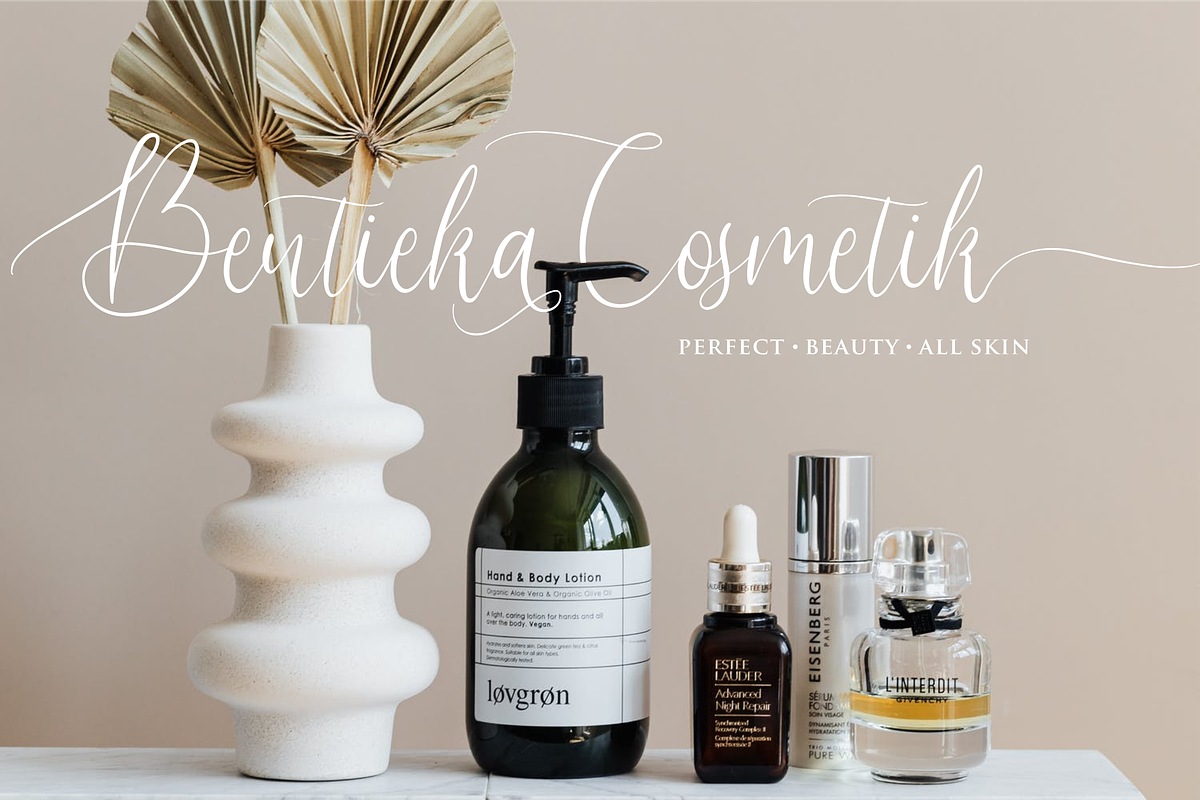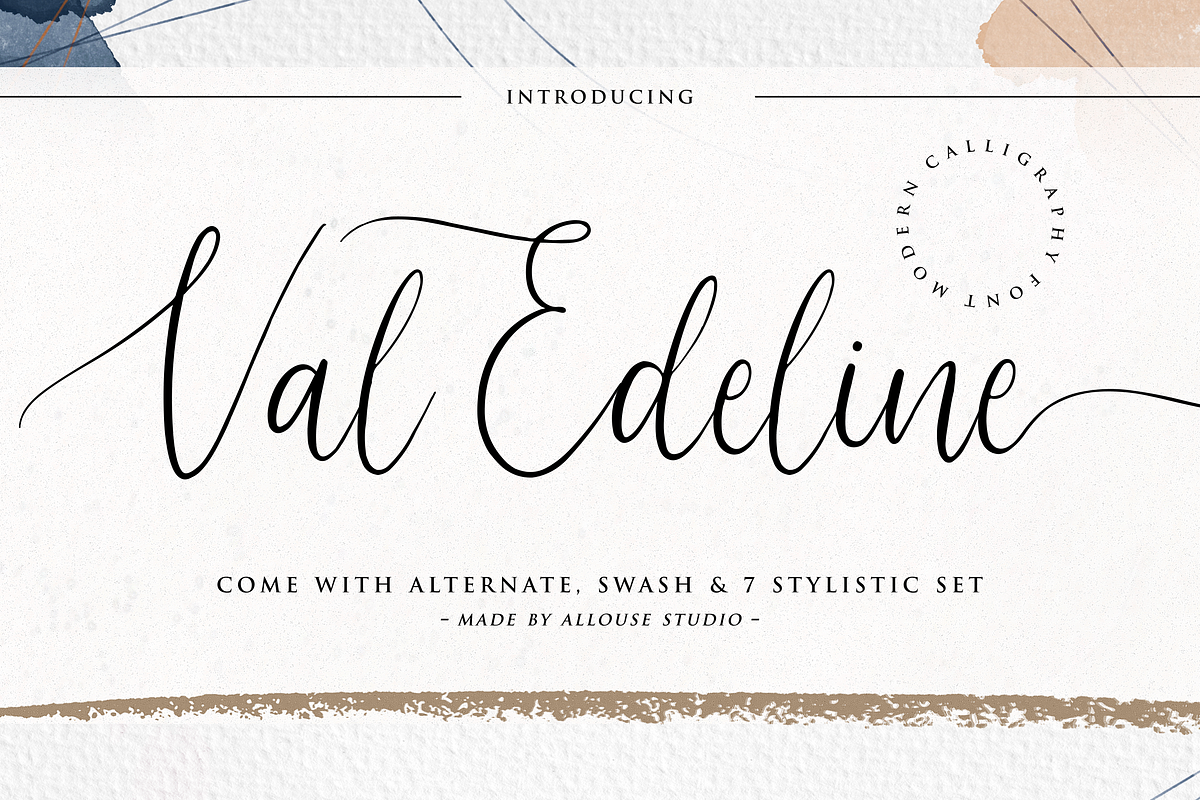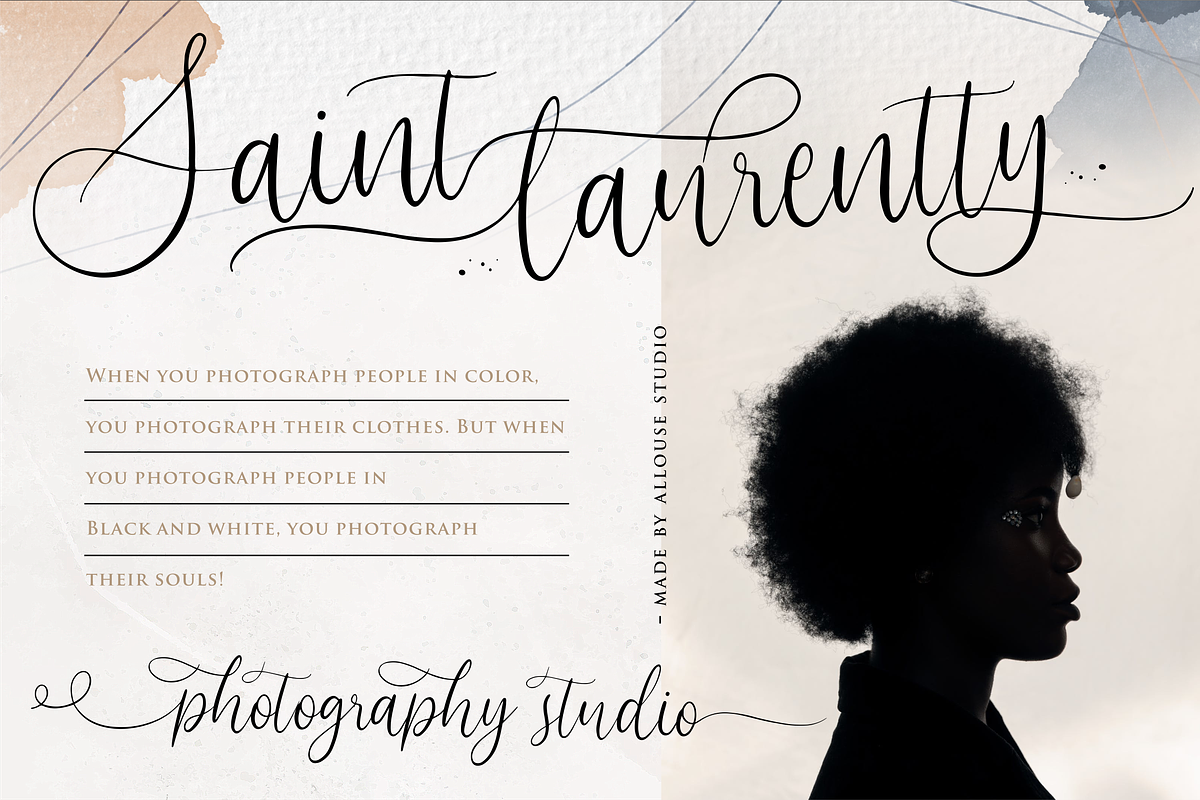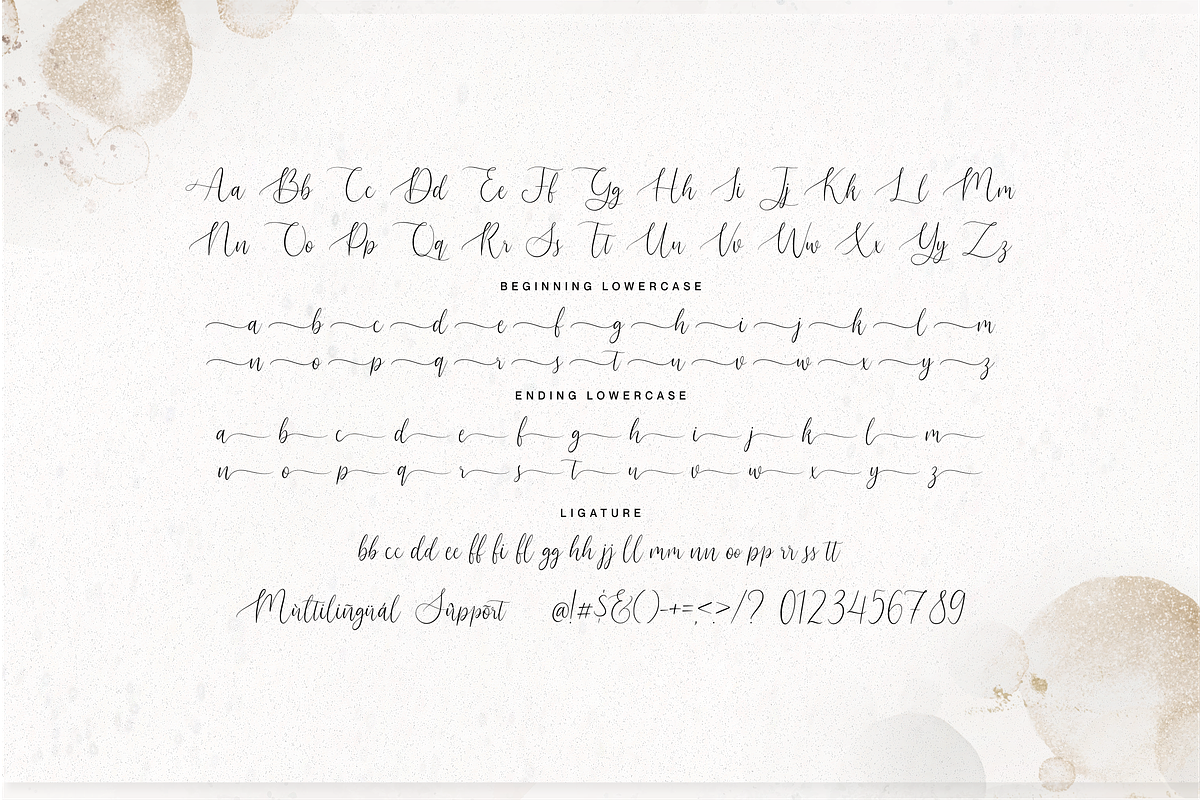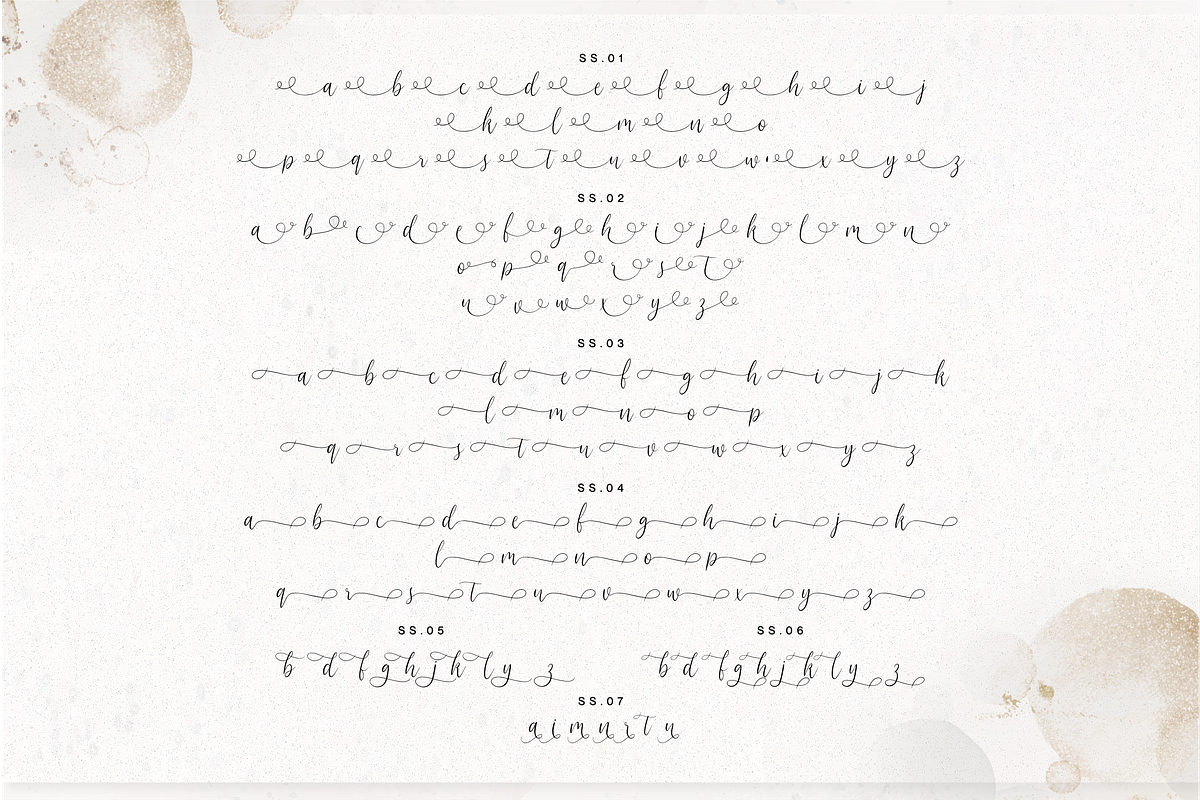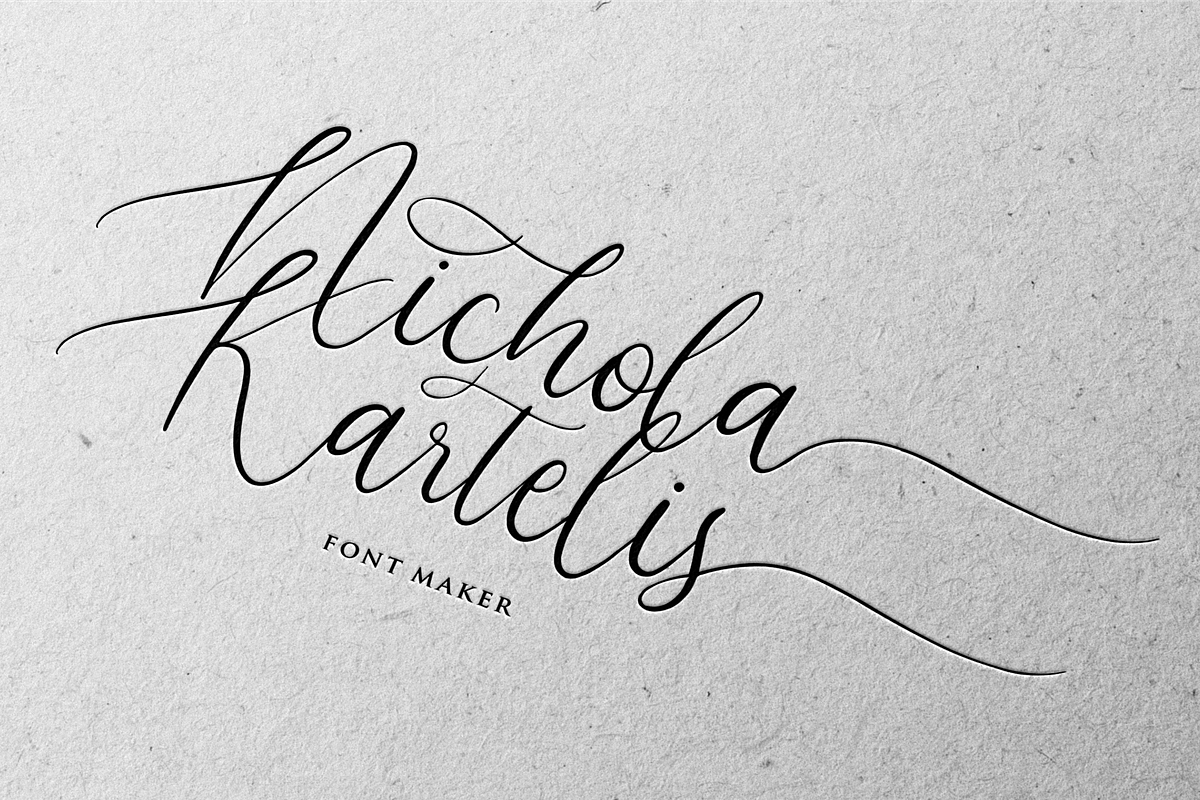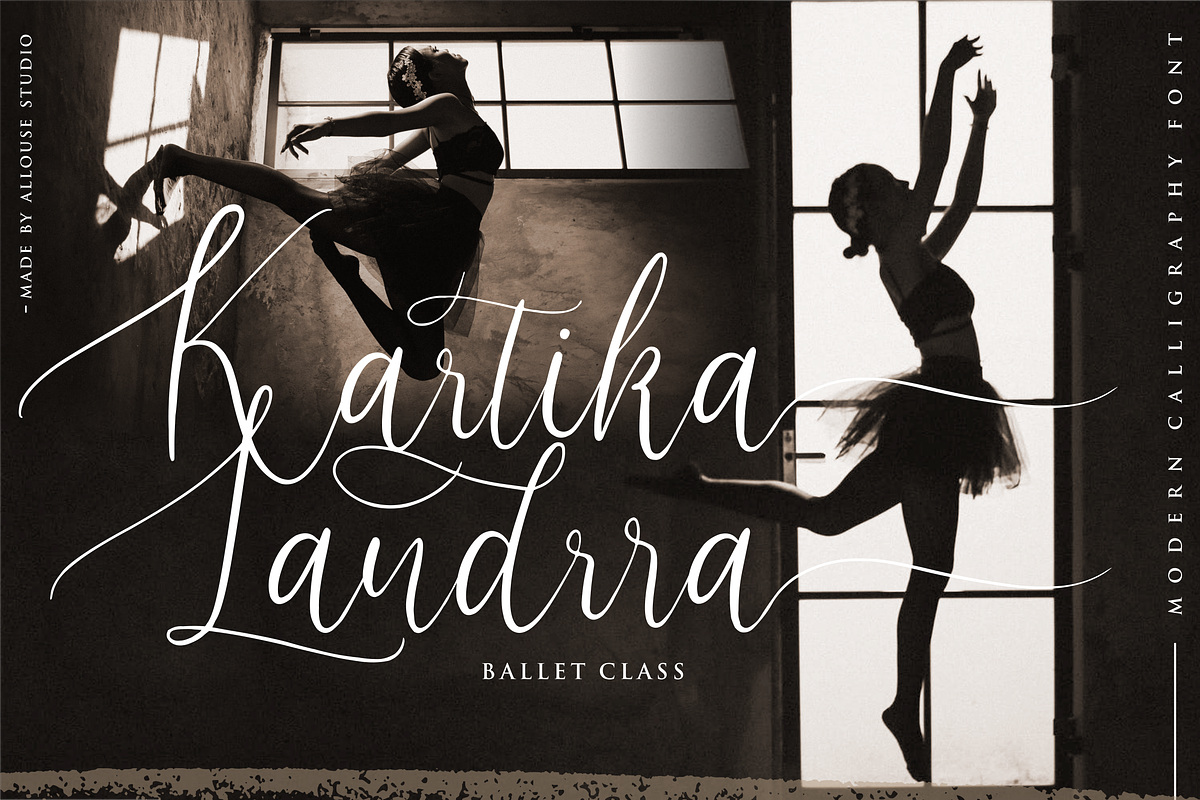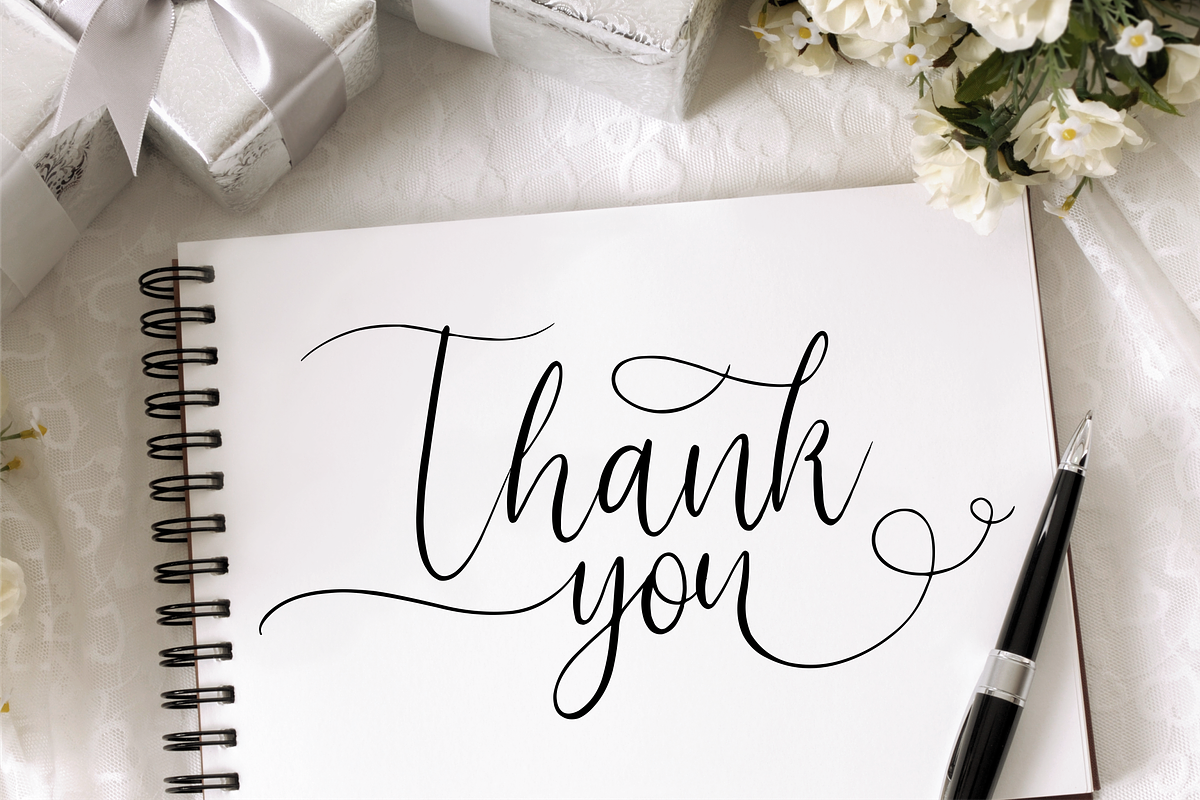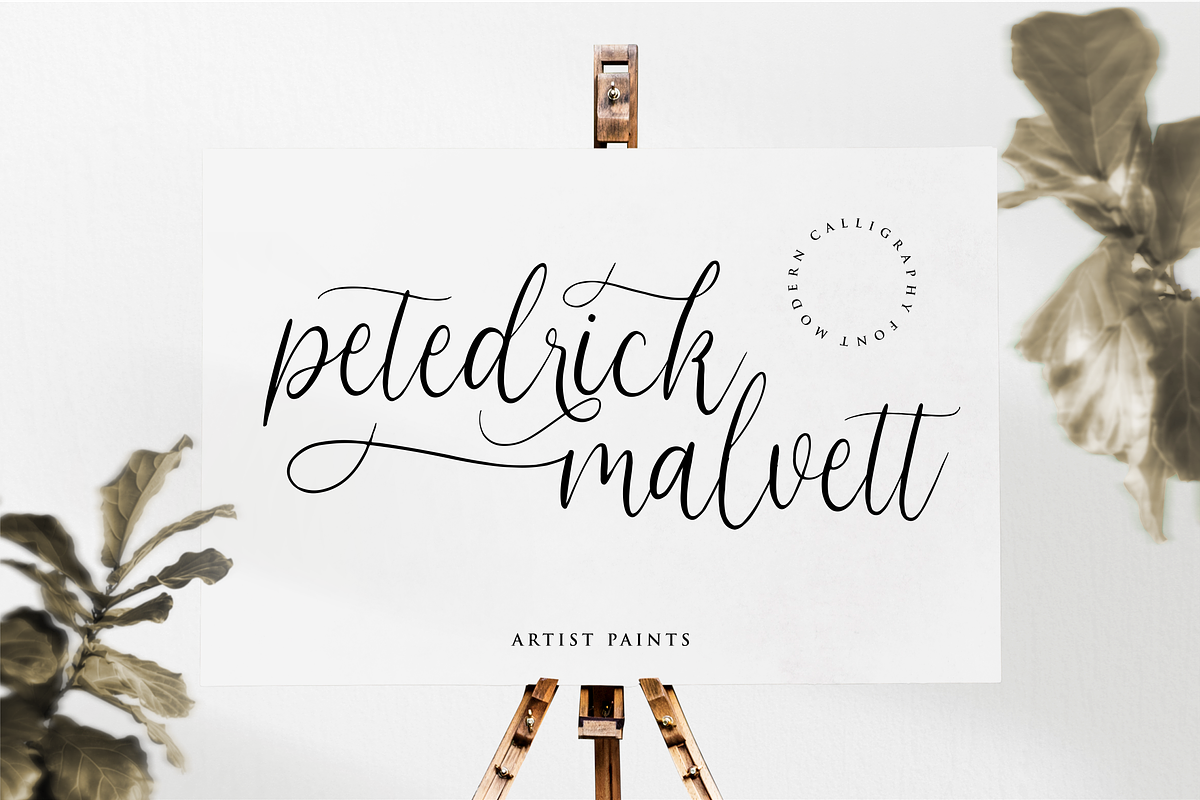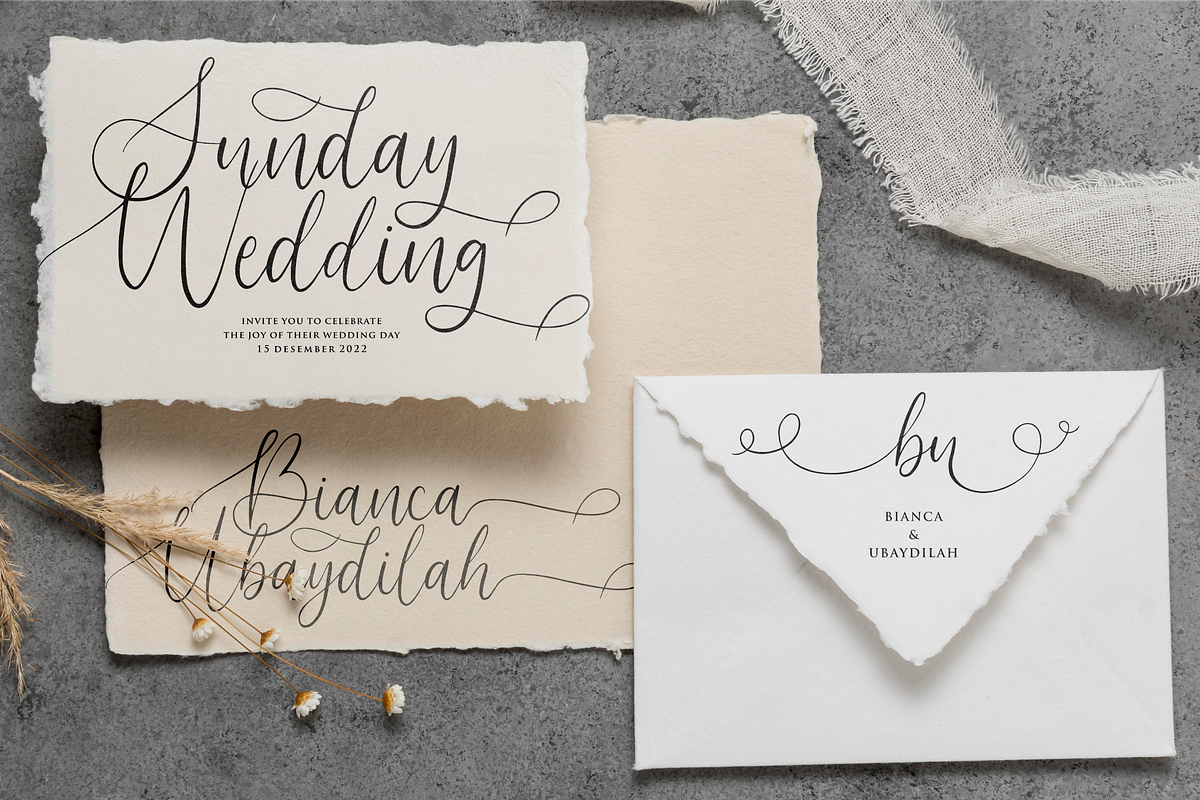
Val Edeline Font
Proudly Presenting, Val Edeline a Modern Calligraphy Font.
Val Edeline is perfect for any titles, logo, product packaging, branding project, megazine, social media, wedding, or just used to express words above the background.
Val Edeline come with much features. Ligatures, beginning and ending swash, stylistic alternates and Multi-Lingual Support.